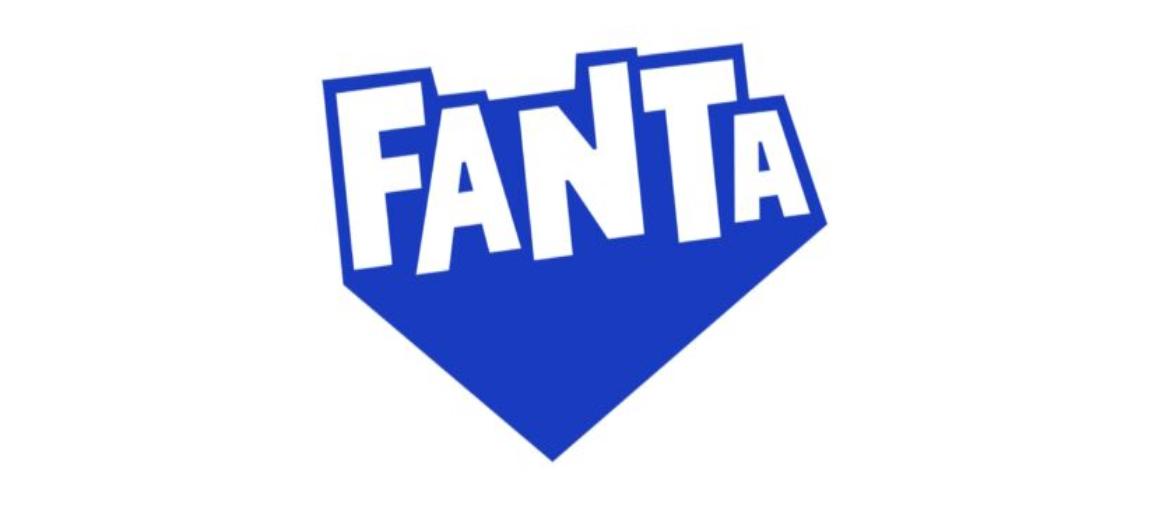
Fanta Font
What Font is Used in the Fanta Logo?
The Fanta font captures the playful and energetic personality of the brand, perfectly reflecting its fun and fruity essence. The font used in the Fanta logo is a custom-designed typeface, created exclusively to highlight the drink’s vibrant and youthful character. Its bold curves and dynamic shapes make it instantly recognizable and full of movement — much like the soda itself. While this exact custom font isn’t publicly available, we’ve found a similar font that closely resembles the original design, giving you the chance to bring that same lively Fanta vibe to your own creative projects. Check it out in the link below.
About Fanta
Fanta is a globally loved fruit-flavored soft drink brand owned by The Coca-Cola Company. First introduced in Germany during World War II, Fanta has since become a worldwide favorite, known for its bold colors, tangy flavors, and upbeat, adventurous branding that celebrates fun and creativity.